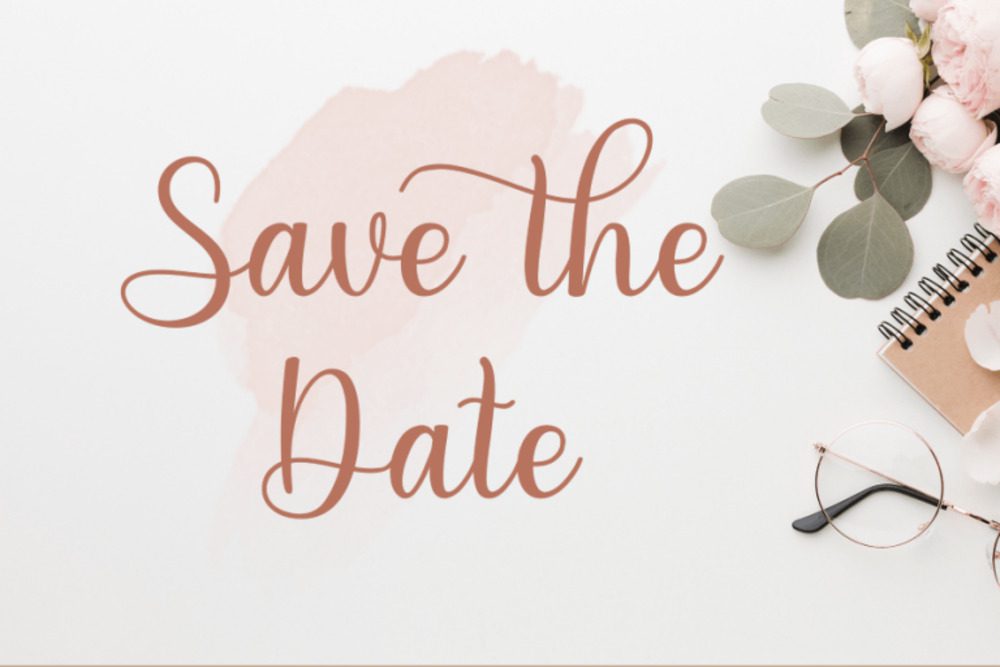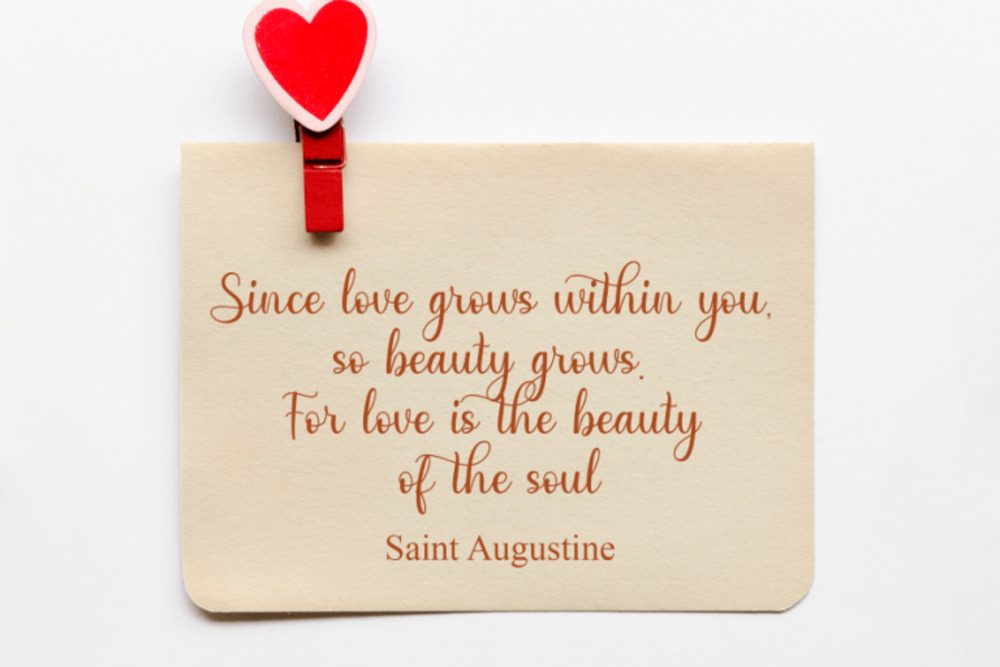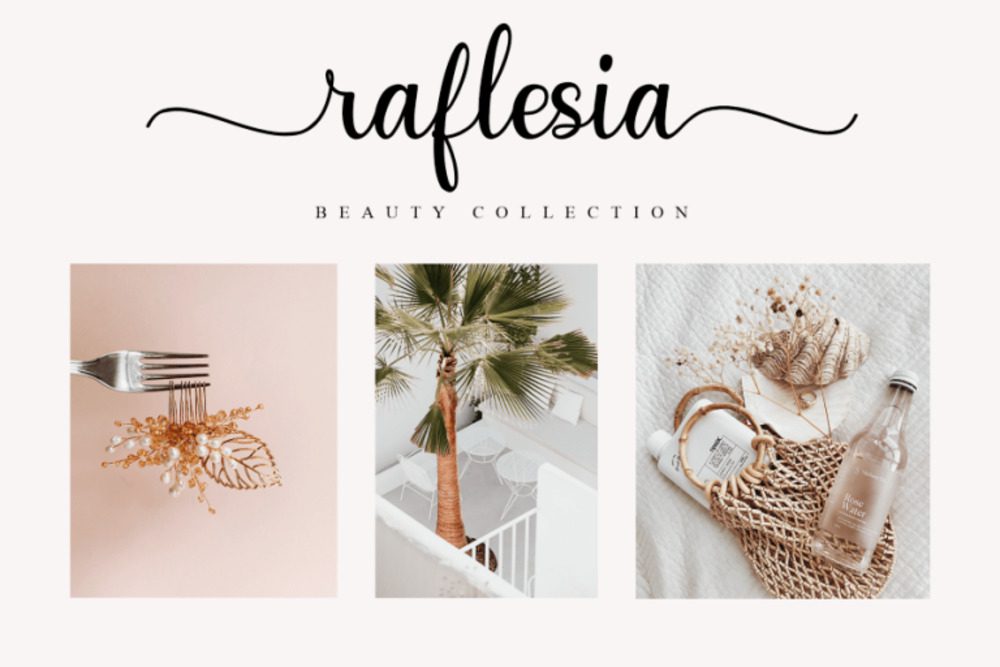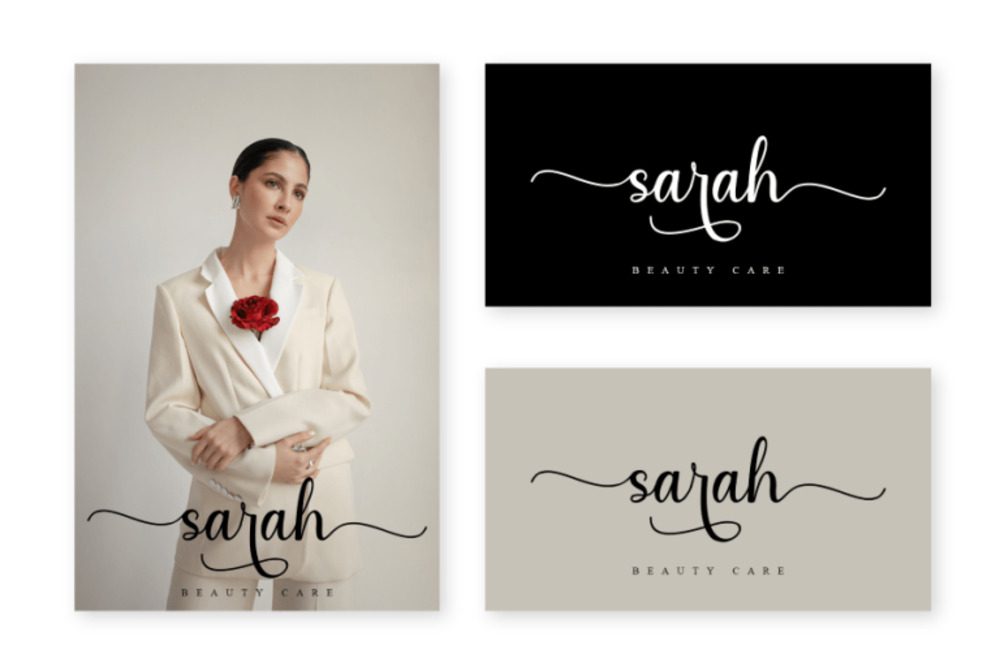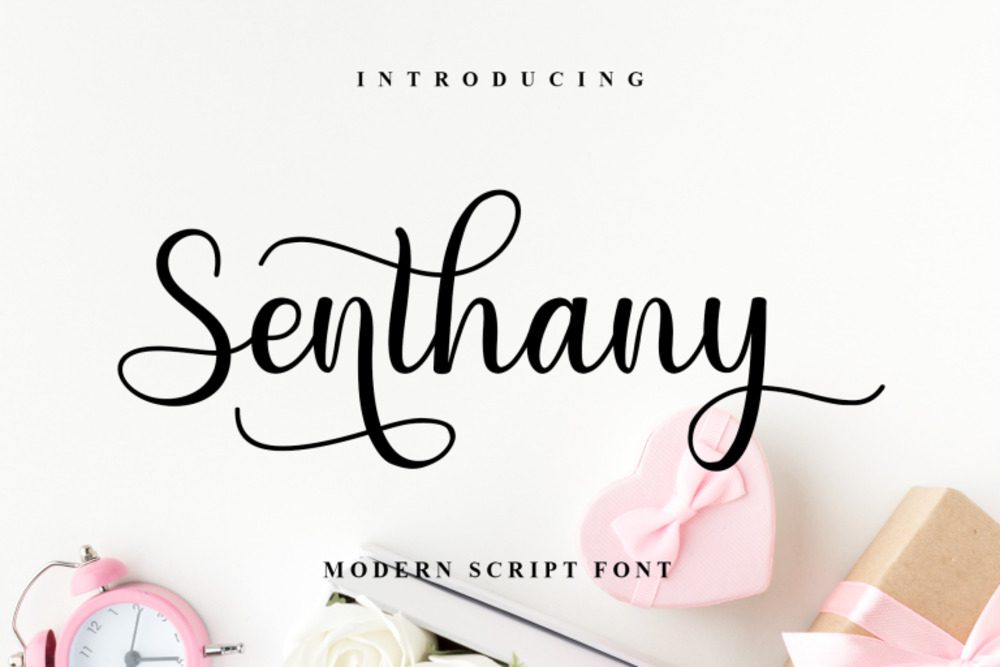
Senthany Font
Senthany is a modern script font that exudes elegance and fluidity. With its graceful, hand-drawn strokes and sophisticated flow, it’s perfect for wedding invitations, branding, and high-end packaging. Senthany combines timeless charm with contemporary style, offering versatility and a personal touch. Its intricate design adds warmth and refinement, making it ideal for projects that demand a luxurious and artistic feel.